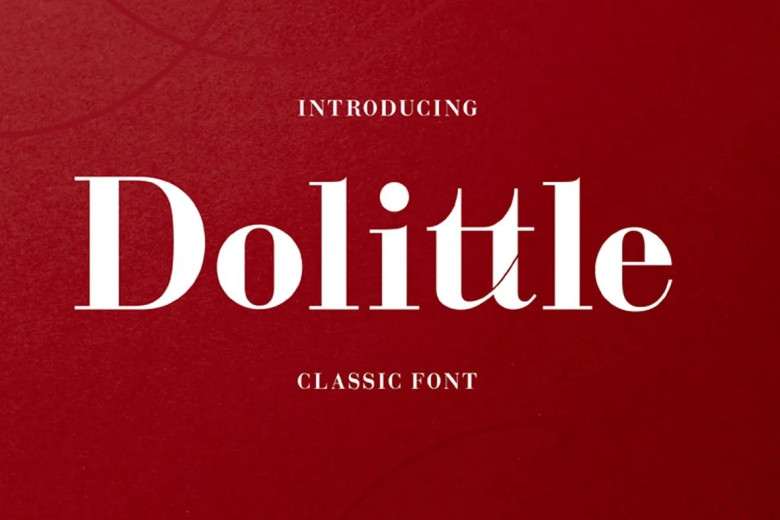
Dolettle Font
Dolittle is a serif font that combines classic style fonts that are moderated with a minimalist design touch, produces beautiful and elegant fonts, and is supported by ligatures and more font replacements with some characters brought in.
Dolettle Classic Serif Font